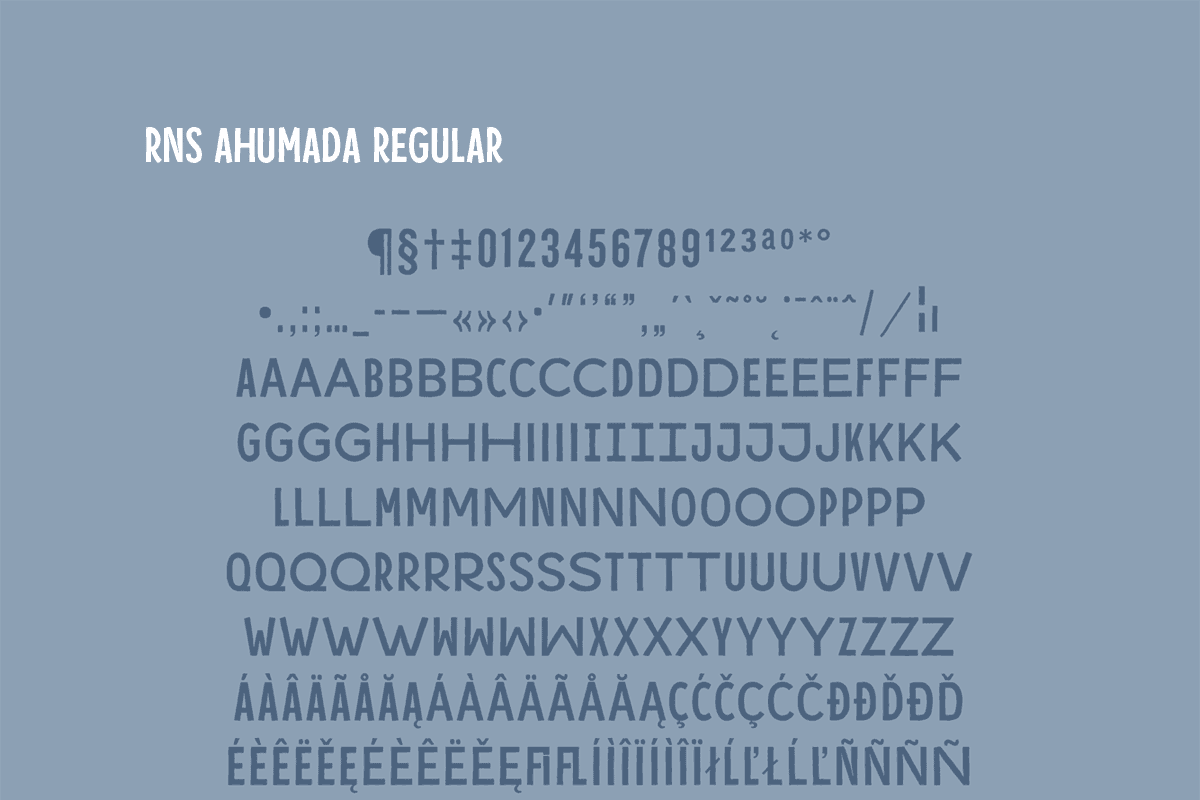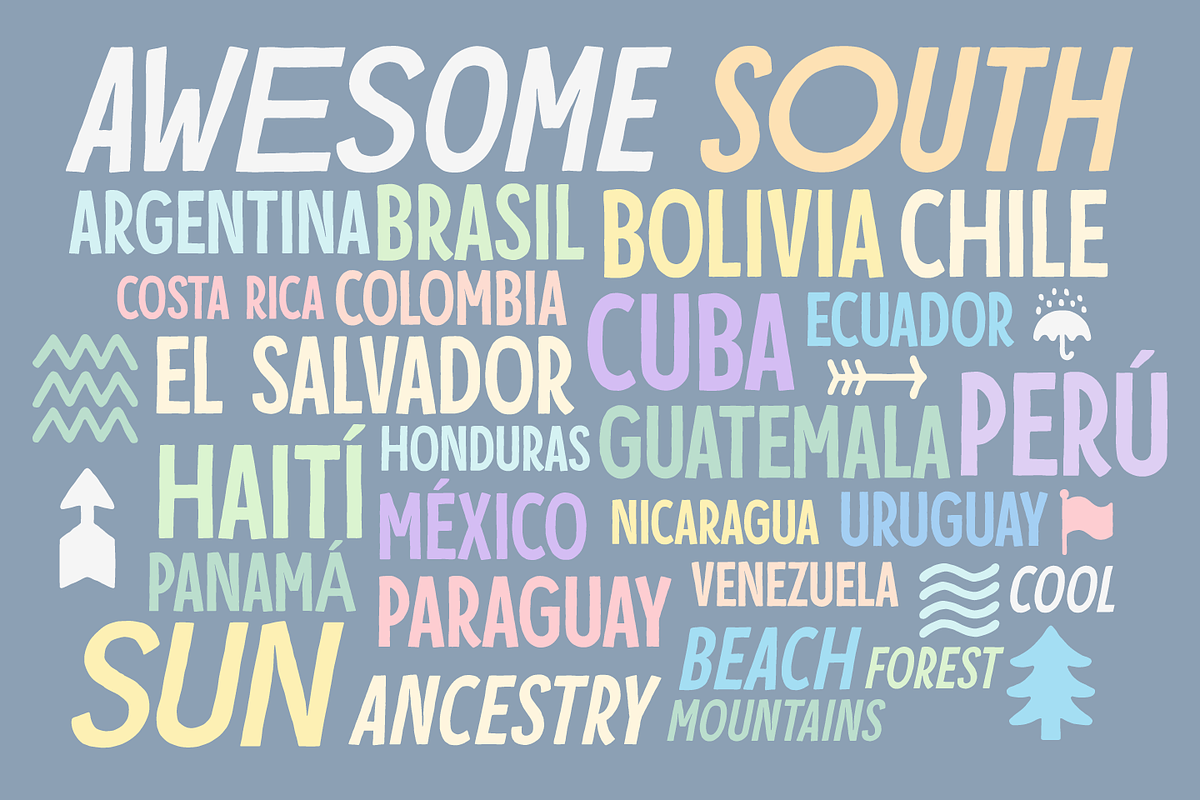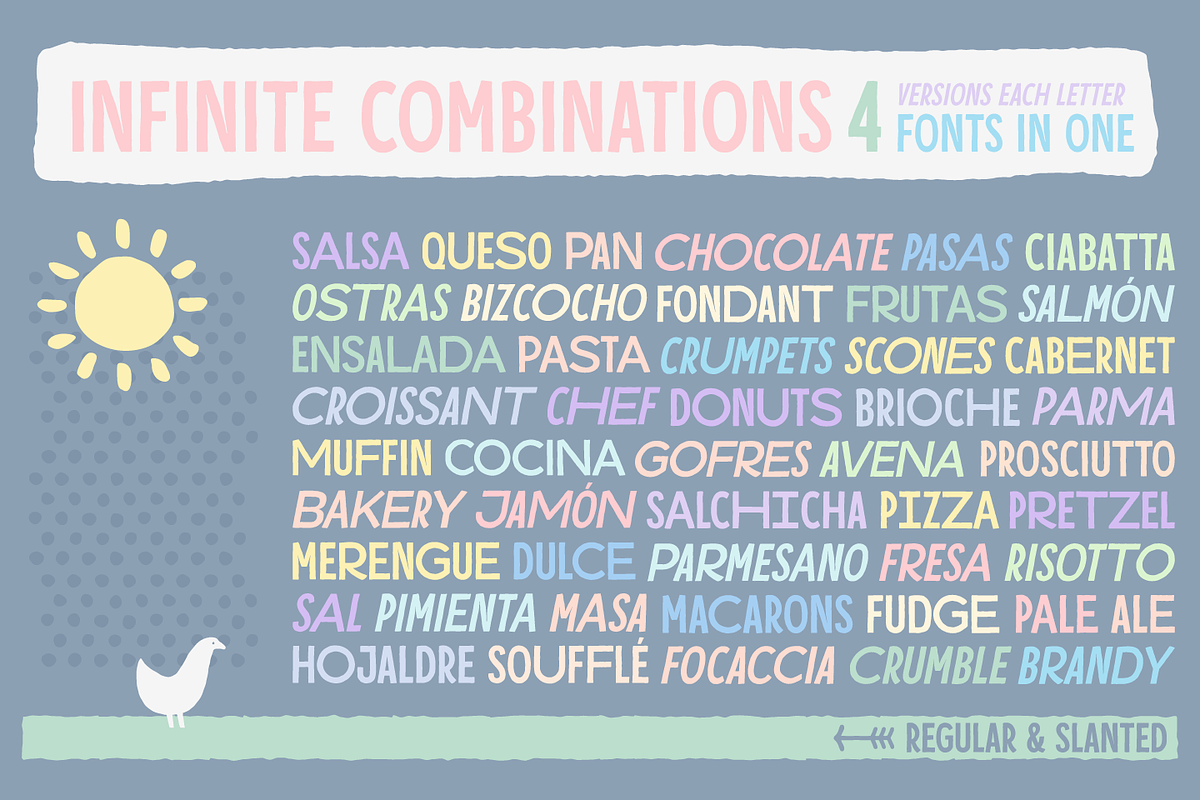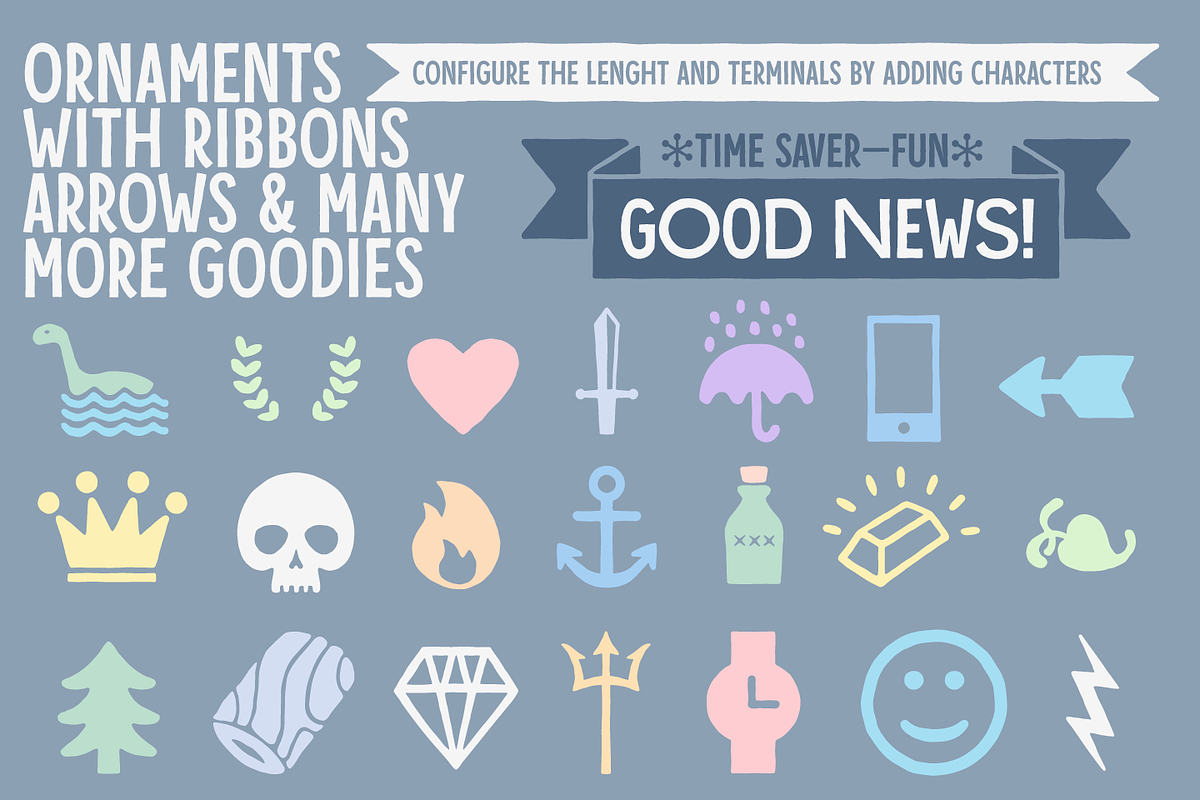
RNS Ahumada
RNS Ahumada by RNS Fonts is a font selected for branding, posters, packaging, typography.
- RNS Ahumada it comes in 3 variants, Regular, Slanted and Ornaments, with many alternates to achieve a random look.
- RNS Ahumada Regular
- RNS Ahumada Slanted
- RNS Ahumada Ornaments
Why RNS Ahumada is worth a look
RNS Ahumada by RNS Fonts fits naturally into Branding, posters, packaging, typography.